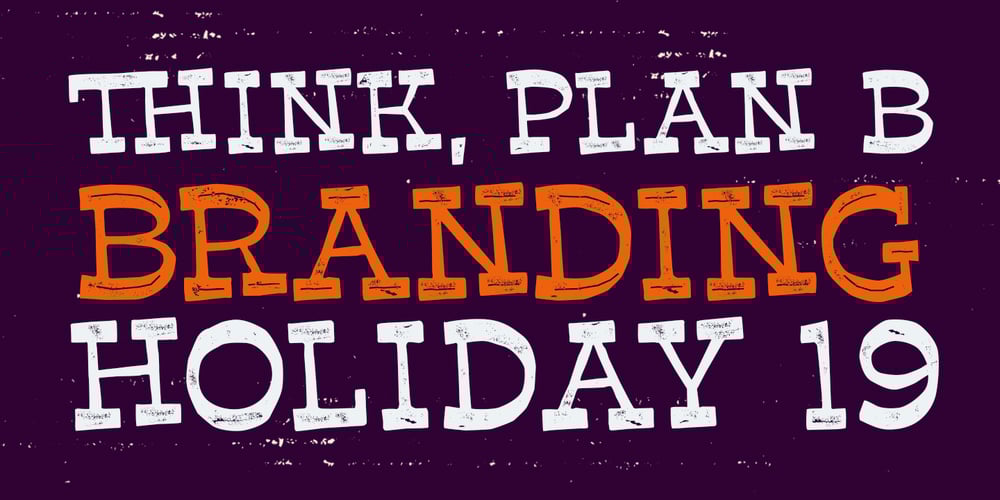
Nacho Rough
Nacho Rough font
Nacho Rough Font Family was designed by Rodrigo Araya Salas and published by RodrigoTypo. Nacho Rough contains 9 styles and family package options. Nacho Rough! A dirty version accompanied by a Thin version, including a set of dingbats.